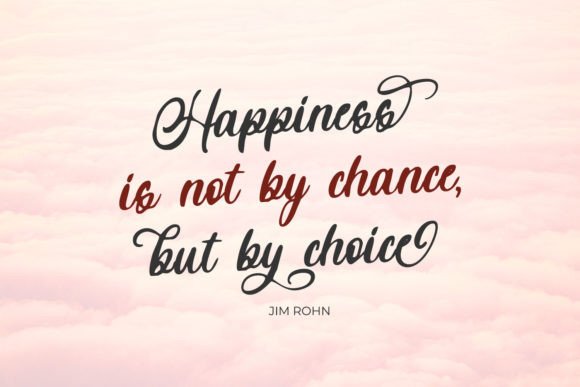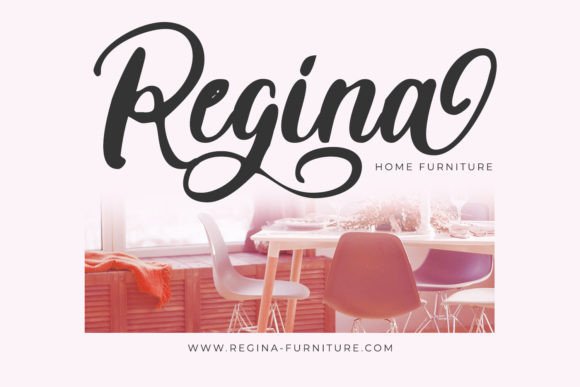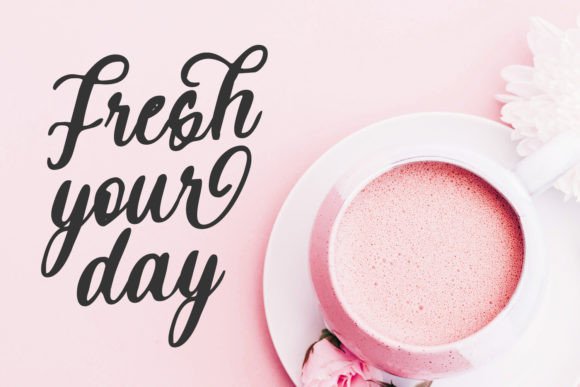
Introduction to Organic Salt Font
Organic Salt is a captivating script font that beautifully emulates the natural fluidity and charm of handwriting.
At its core, Organic Salt is designed to resemble casual handwriting, with each character flowing seamlessly into the next The fairly thick weight of the font adds a comforting solidity, ensuring that it makes your designs stand out.
Key Features of Organic Salt Font
Why Choose Organic Salt Font?
Organic Salt Font offers exceptional quality and versatility, making it a valuable addition to your design toolkit. Whether you’re creating for personal projects or commercial use, Organic Salt Font delivers professional results.